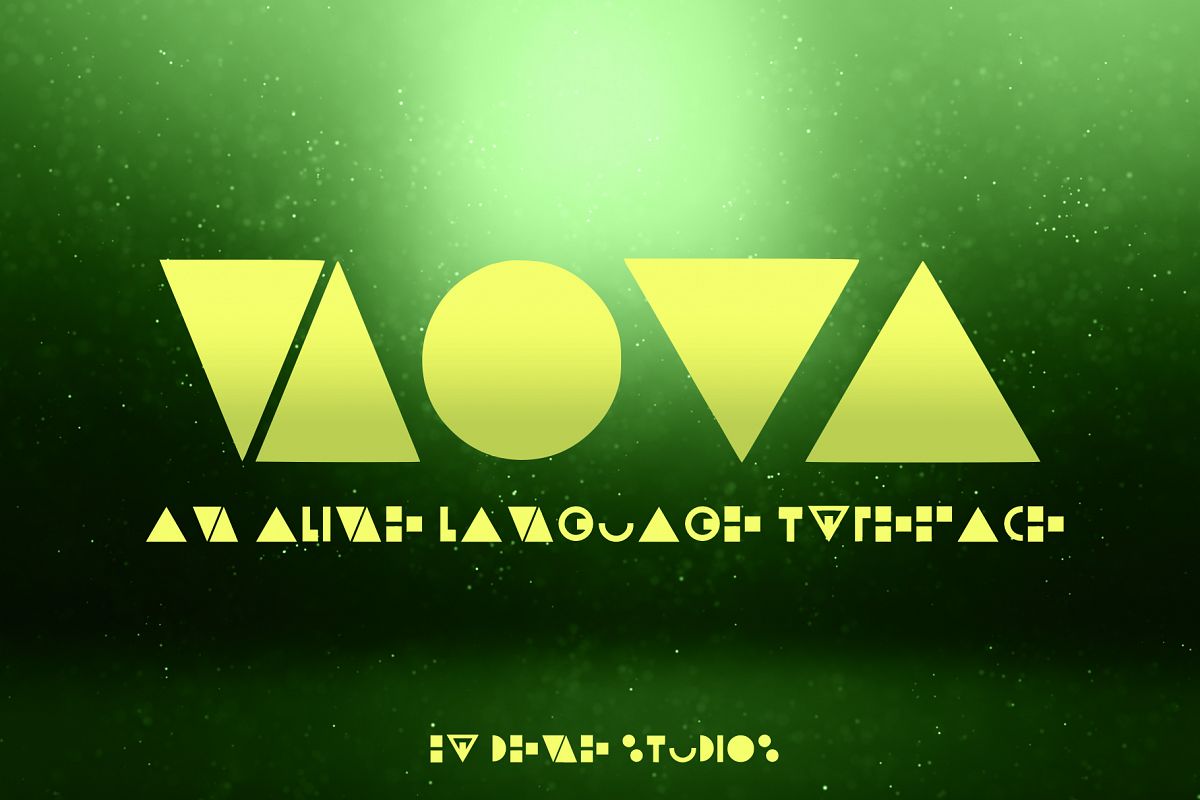
NOVA
NOVA is a unique and creative design that has been passionately handcrafted to give you an alien language typeface. Inspired by sci-fi, this font is perfect for your next project, especially if you want to give a futuristic feel.